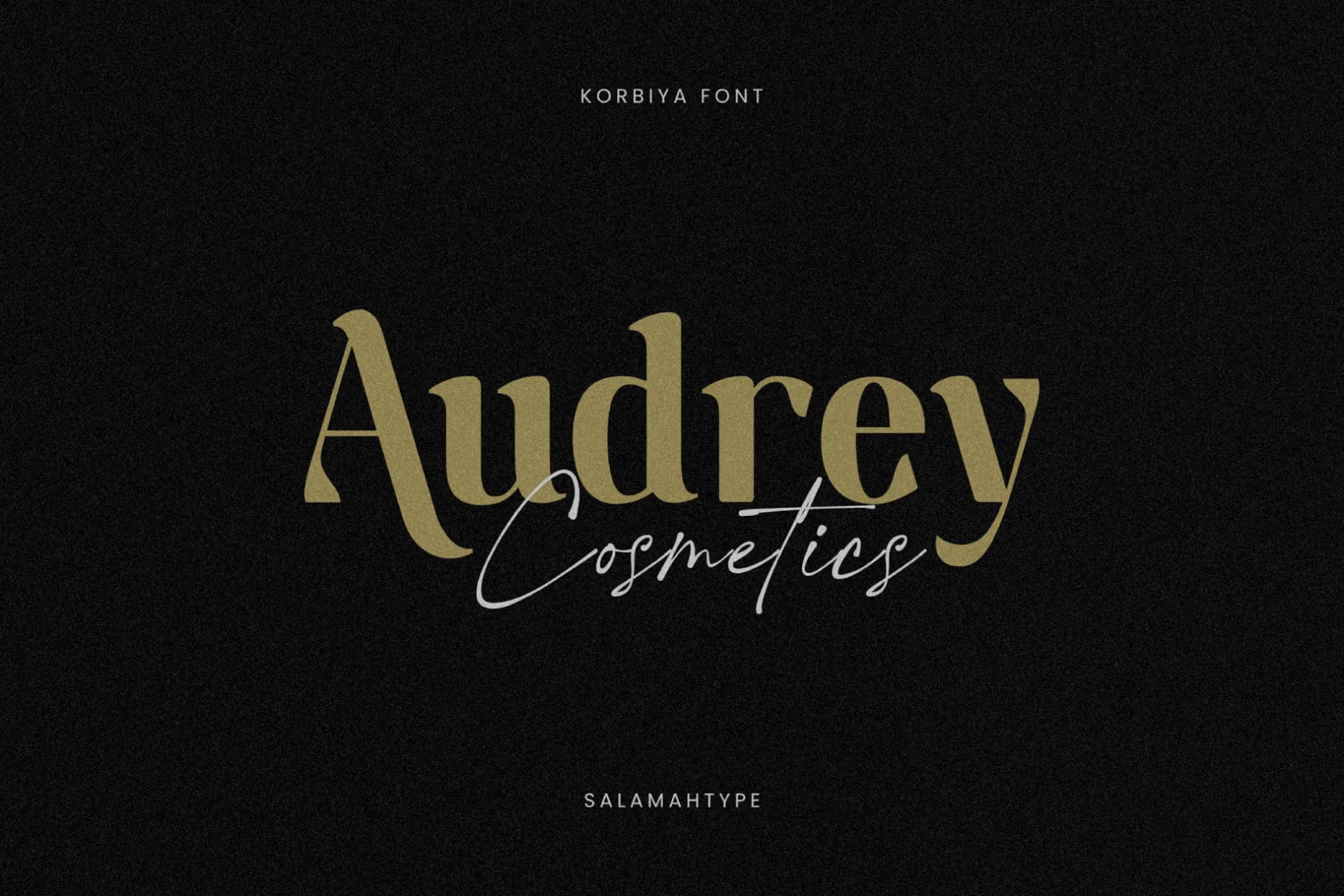
Korbiya Font
Korbiya is a sophisticated serif typeface that exudes luxury with its elegant and stylish design. Featuring sleek lines, balanced proportions, and fine detailing, it is perfect for branding, logos, fashion, beauty, and premium products. Its refined aesthetic lends a professional touch to any design.
Korbiya also includes stylistic alternates, giving designers the flexibility to create fresh and captivating typography. This font is well-suited for packaging, magazines, invitations, and social media, embodying a timeless sense of luxury.